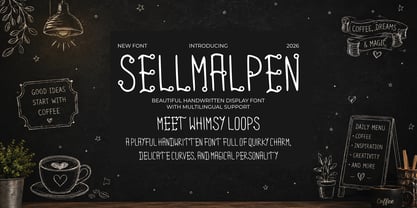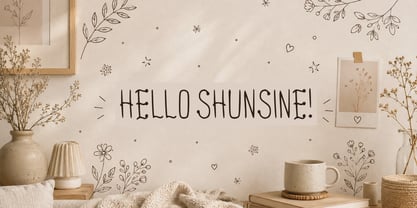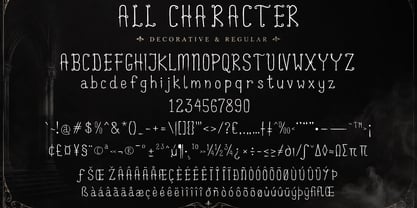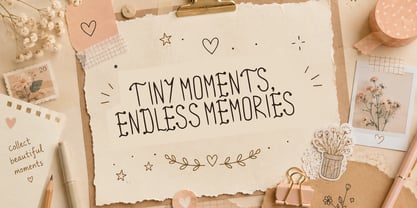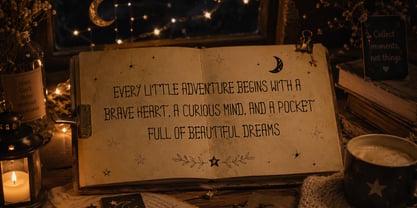
Sellmalpen
Sellmalpen is a unique decorative handwritten font that combines playful elegance with a mysterious artistic touch. Featuring tall letterforms, quirky curves, and handcrafted details, this font creates a distinctive personality perfect for creative and expressive designs.
Inspired by whimsical hand lettering and modern decorative typography, Sellmalpen brings a stylish yet unconventional look that stands out beautifully in both digital and print projects. Its clean readability combined with decorative alternates makes it ideal for designers who want something artistic, fun, and memorable.
This font includes uppercase, lowercase, numerals, punctuation, symbols, and multilingual characters, making it versatile for a wide range of creative needs.
Perfect For:
• Horror Themes
• Book Covers
• Movie Posters
• Branding & Logo Design
• Social Media Graphics
• Craft Projects
• Invitations & Greeting Cards
• Creative Packaging
• Quotes & Typography Art